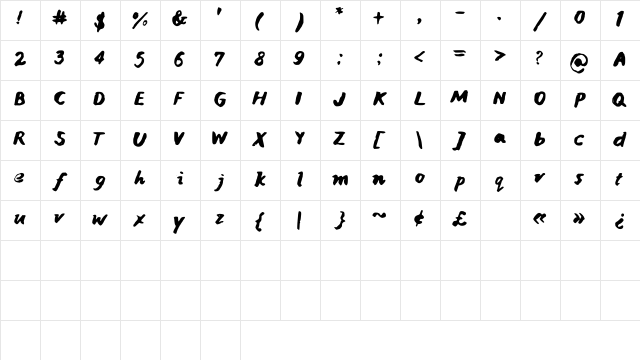
JaniceHandInk Medium
Design Context for JaniceHandInk Typeface
JaniceHandInk brings a calligraphic fluidity to the page — its connecting strokes and expressive curves give it an unmistakably human quality.
Font Pairing: Combine JaniceHandInk with a simple geometric sans for maximum contrast — the tension between flowing curves and clean structure is a classic typographic pairing.
Pro Tip: Use JaniceHandInk for short runs of text — names, titles, or taglines. Extended body copy in script faces tires the eye quickly.